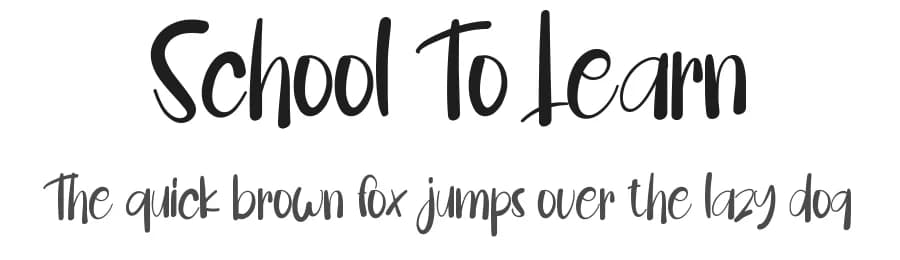
About School To Learn Font
School To Learn Font is a script font that shines as a display or heading face. Pair it with a clean sans-serif or serif font for body text β the contrast creates a clear hierarchy while the two styles stay balanced and easy to read.
School To Learn Font
by Gado Gado